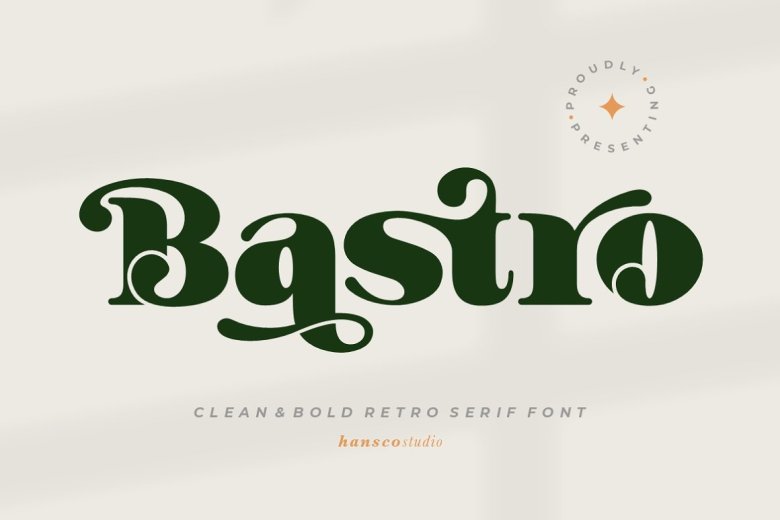
Bastro Font
Bastro font is an elegant retro serif font with a contemporary retro style that makes an impactful statement. Utilize Bastro font to achieve both modern and retro looks in every design concept you imagine! Furthermore, its PUA code means you have access to every glyph and swash with Character Map or Character Viewer on mac!
Bastro Retro Serif Font